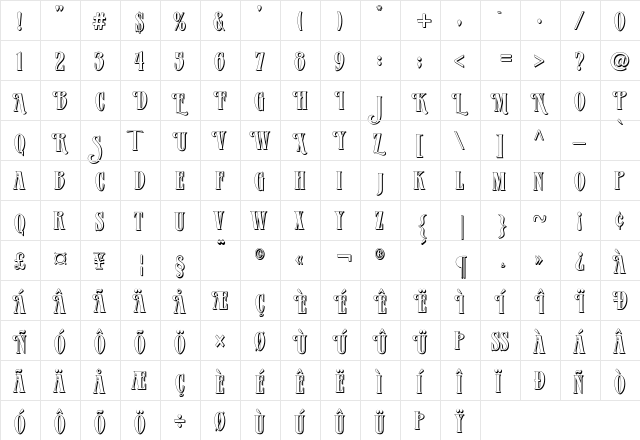
VerveShadowAlternate
Design Context for VerveShadowAlternate Typeface
VerveShadowAlternate brings ornamental detail and strong personality to headlines and identities, where visual impact matters more than quiet functionality.
Font Pairing: Pair with a clean neutral sans-serif for body copy to let VerveShadowAlternate's character lead without overwhelming the composition.
Pro Tip: Treat VerveShadowAlternate as the centrepiece of your typographic hierarchy. One strong heading set in a decorative face can carry an entire layout.